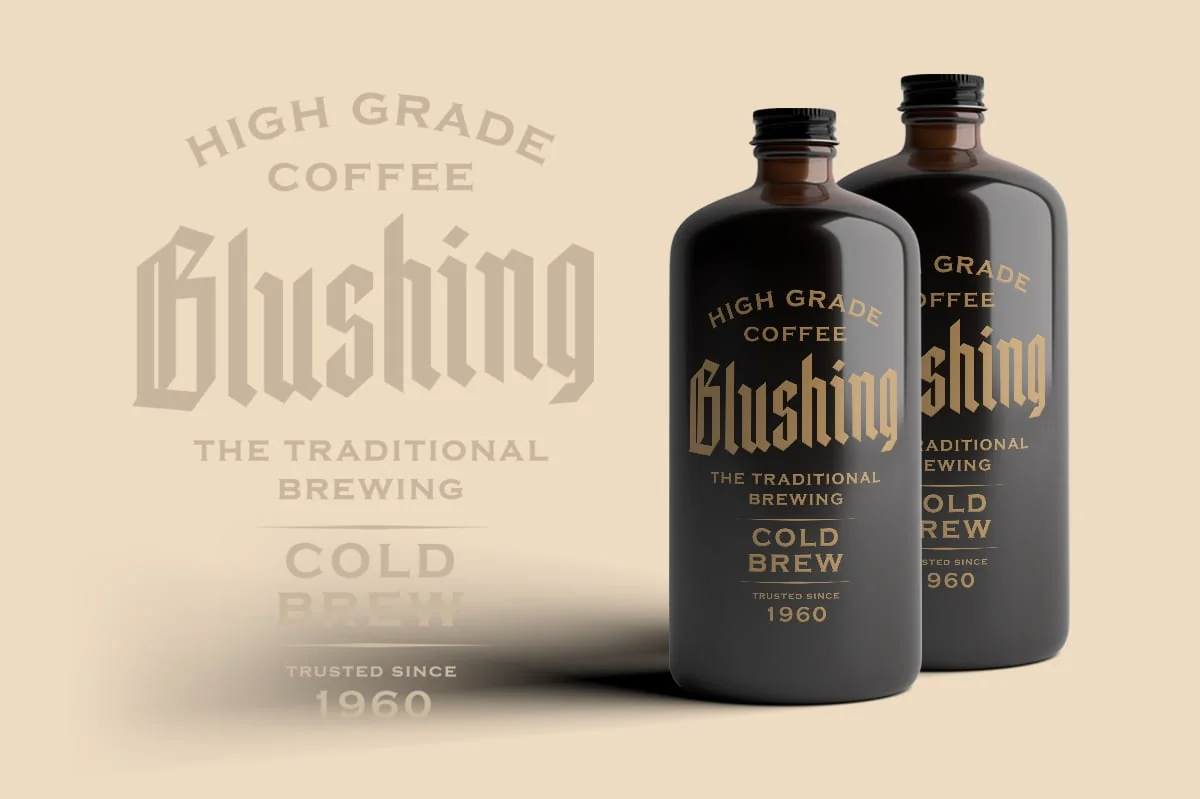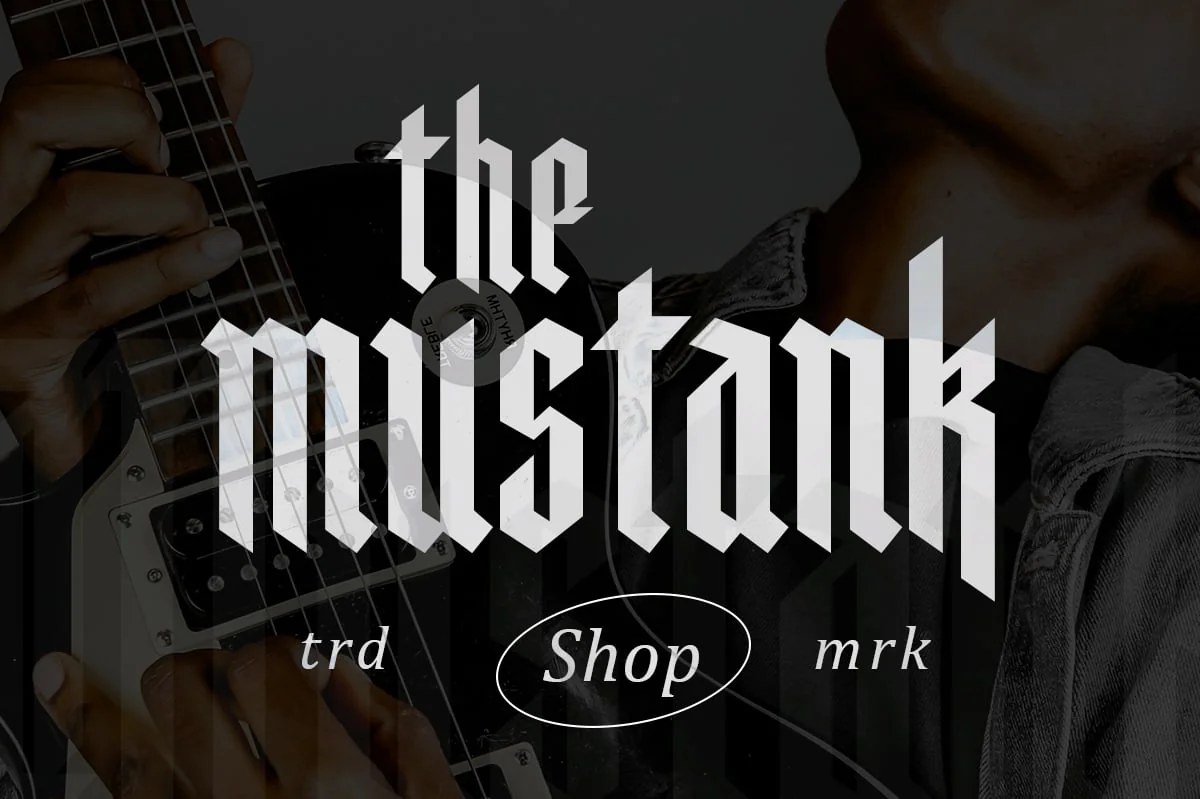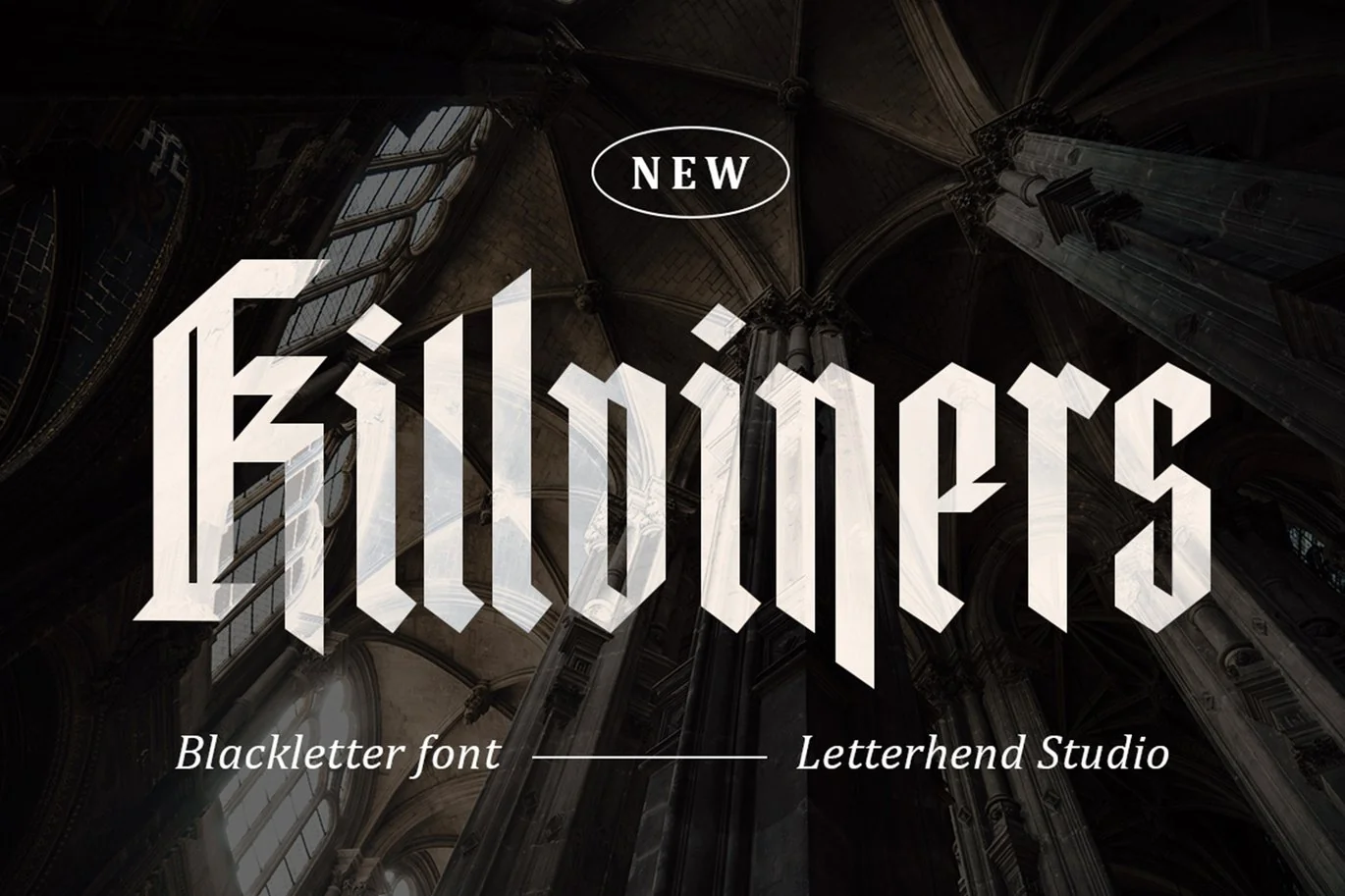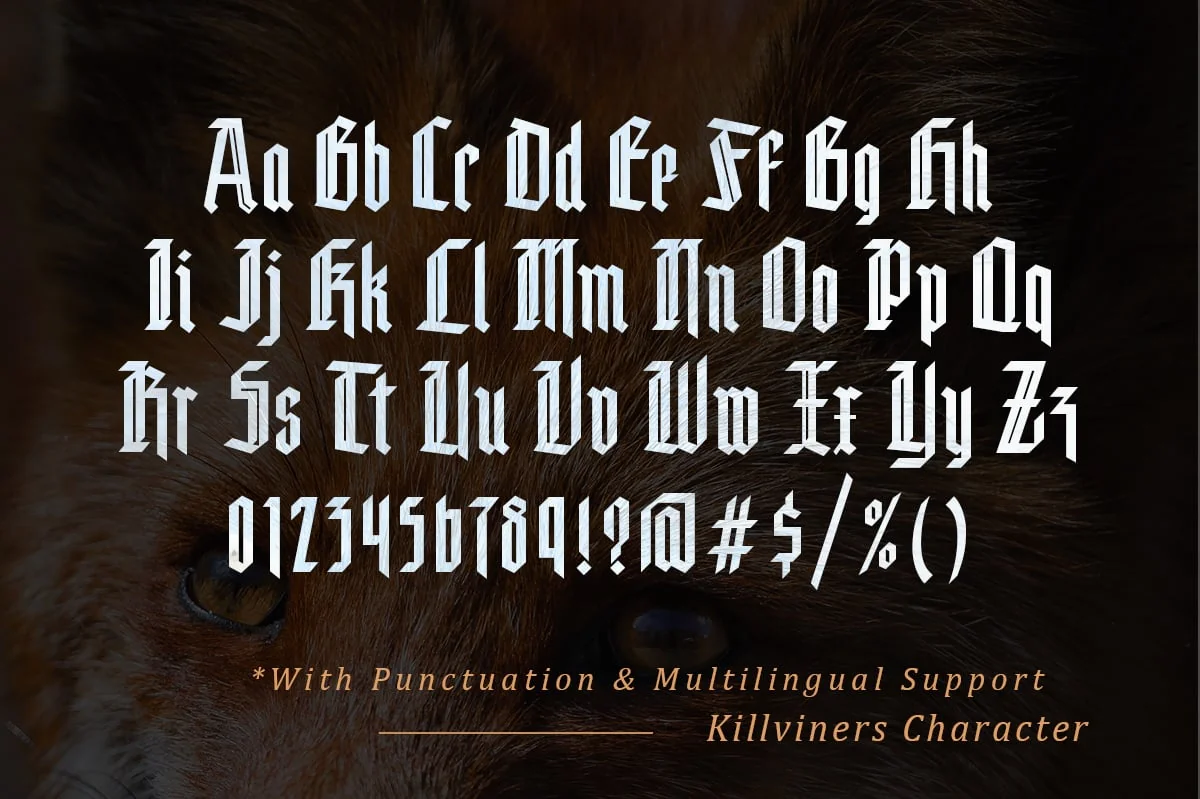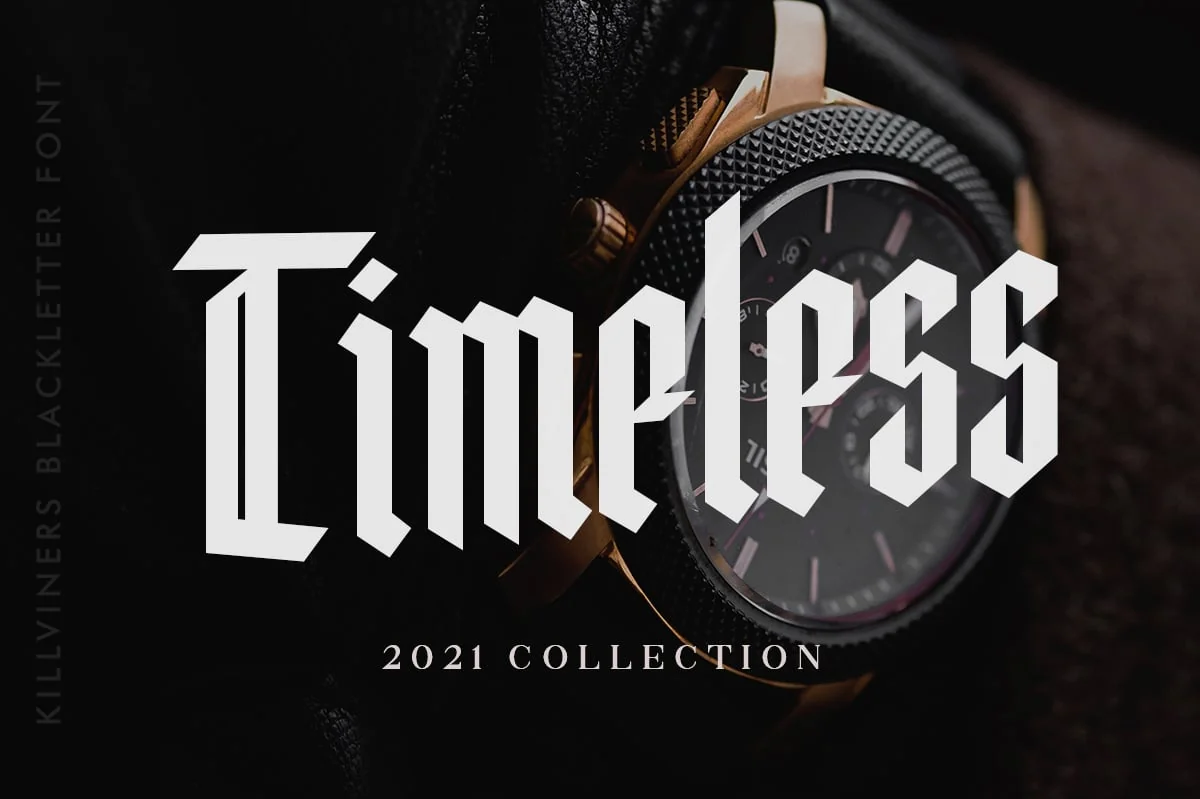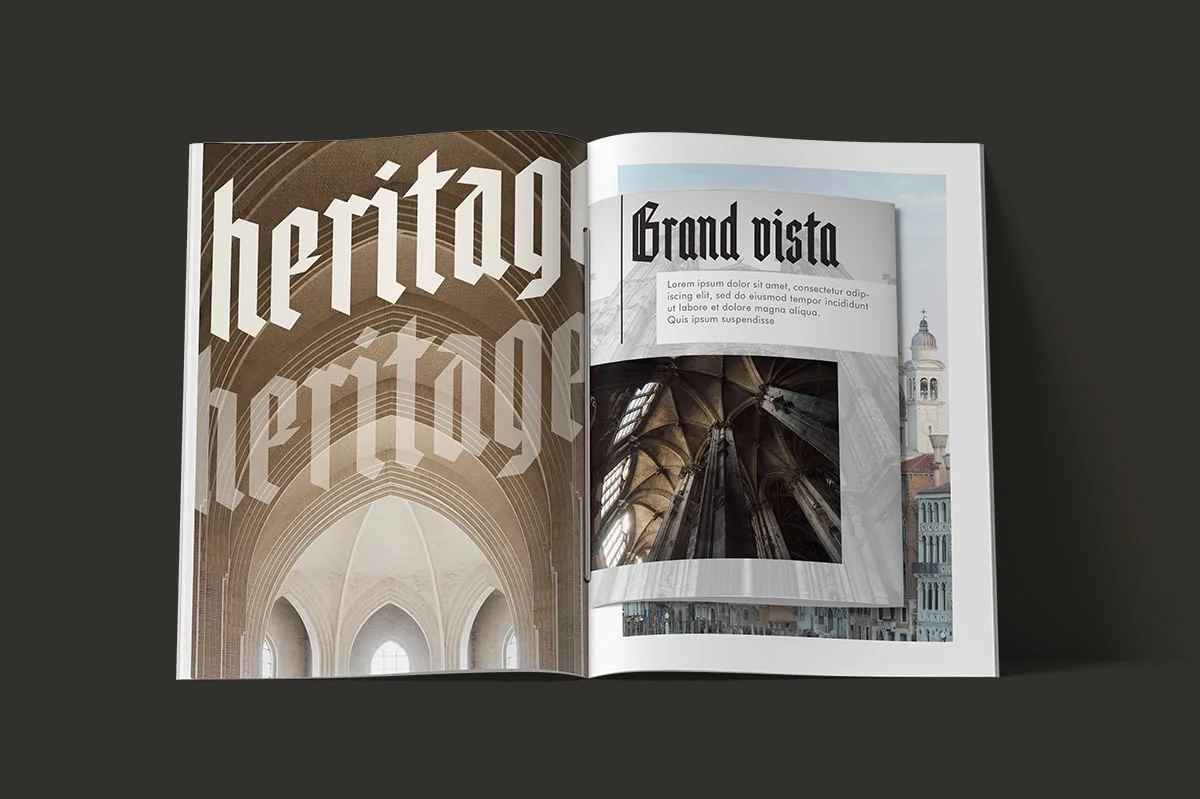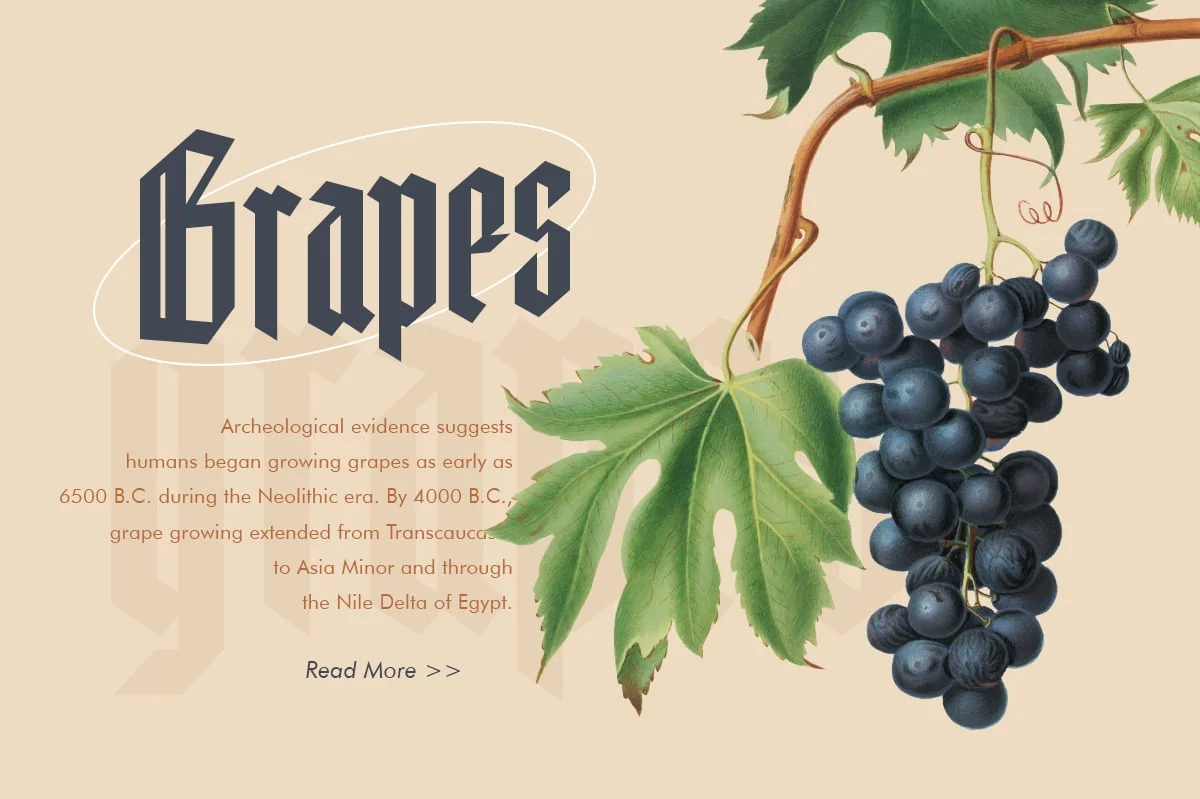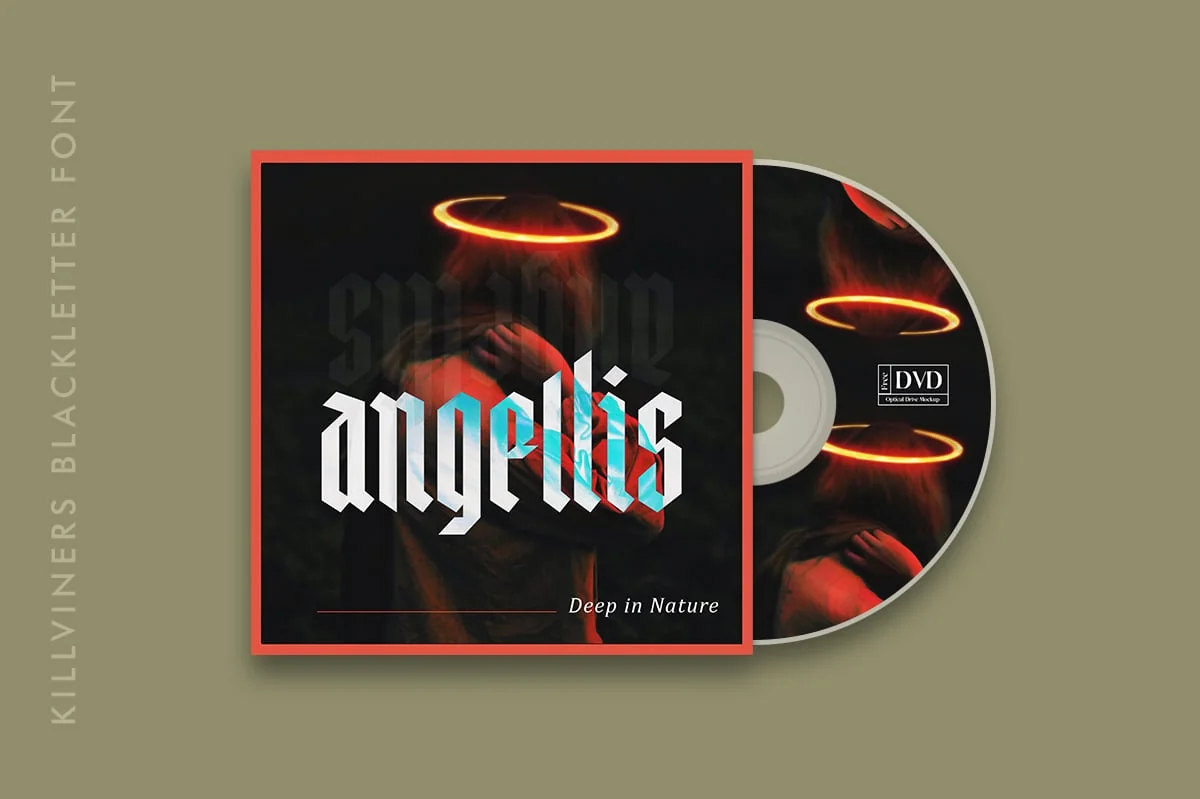
Killviners – Modern Blackletter Font
Introducing, Killviners – A modern blackletter typeface. This type of font perfectly made to be applied especially in logo, and the other various formal forms such as Logo, Clothing, Fashion, Headline, or any type of advertising purpose.
- uppercase & lowercase
- numbers and punctuation
- stylistic alternate
- multilingual